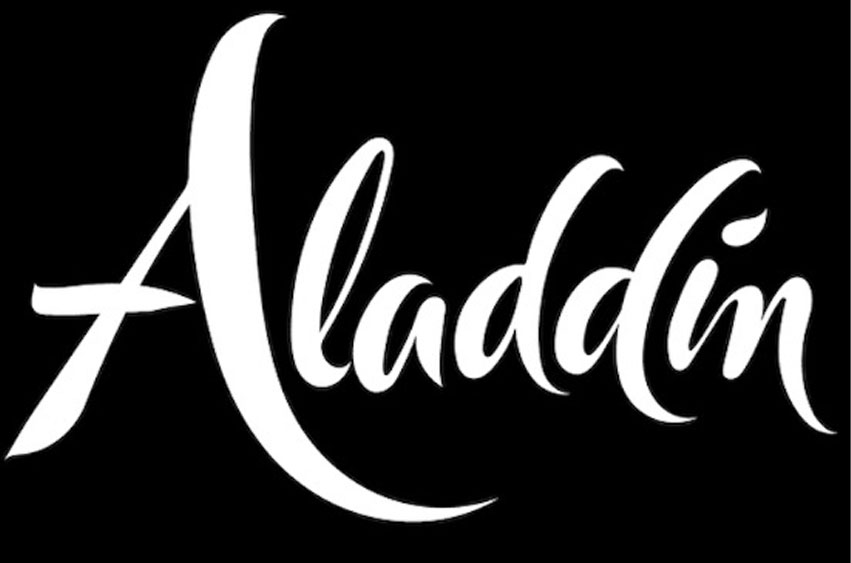
Aladdin Font
Aladdin Font An animated typeface is named Aladdin font. It is totally based on a famous live-action animated musical fantasy film from Walt Disney Pictures. Aladdin is a 2019 American live-action animated musical fantasy film produced by Walt Disney Pictures. This film is directed by Guy Ritchie, from a gorgeous script he co-wrote with John August. And this film is an adaptation of Disney’s 1992 animated film of the same name.
Aladdin is a fancy Calligraphy font that will whisk the designers away to a place of classy, luxury, and elegant. Aladdin calligraphy script font including lowercase and upper characters, a vast of punctuation, and alternate glyph. Aladdin has natural calligraphy feel with a sweety swash that is very perfect for every creative design. This hand-letter font will make your design has a cool and fresh natural touch for each detail.
With this Aladdin font, it is a cool script typeface with fancy handwriting as well as perfect flow. This font is perfect for product packaging, promotion, wedding invitation, signature, branding, and so on.